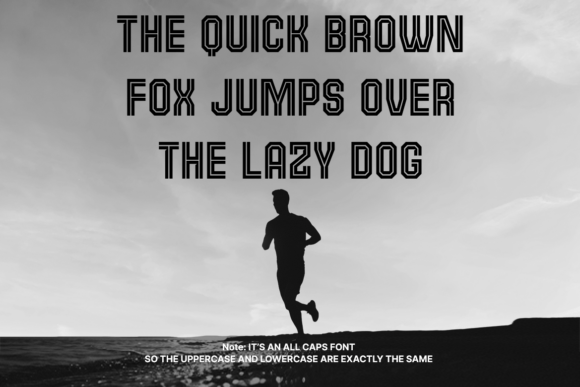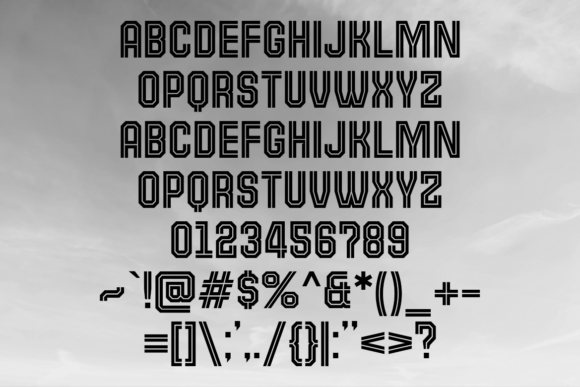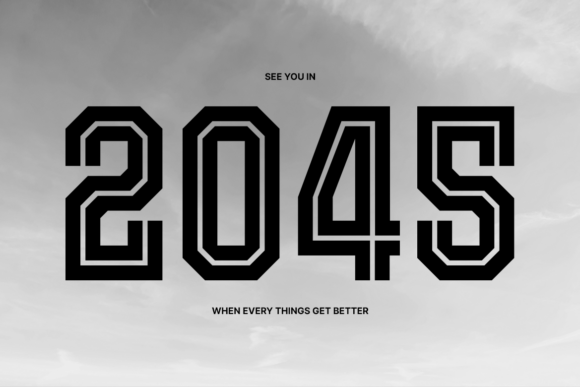
Bogotier Font: Unleash Your Inner Champion
In the world of design, typography plays a crucial role in conveying the tone and personality of a brand. For designers and crafters looking to add a competitive edge to their work, the Bogotier font is an excellent choice. Inspired by the dynamic visuals of today’s sports world, Bogotier is a sleek and bold font designed for champions.
The Inspiration Behind Bogotier
The Bogotier font is born out of the high-energy world of sports. From the bold numbers on a jersey to the fierce branding of a championship, the font captures the essence of athleticism and performance. The designers of Bogotier drew inspiration from the sleek lines and dynamic visuals that dominate the sports landscape, including esports events. The result is a font that exudes confidence, energy, and a winning mentality.
Design Features of Bogotier
Bogotier’s design is characterized by sleek, jersey-inspired characters with bold lines running through them. This unique feature gives the font its distinctive look and feel, setting it apart from other fonts in the market. The bold lines add a sense of dynamism and movement to the font, making it perfect for designs that require a high level of energy and excitement.
Perfect for Sports and Esports Designs
Bogotier is specifically designed for designers and crafters who work on sports and esports-related projects. The font’s bold and sleek design makes it ideal for:
- Jerseys and team branding
- Championship logos and branding
- Esports event visuals and promotions
- Sports equipment and apparel design
Whether you’re designing a logo, brochure, or social media graphic, Bogotier is the perfect choice to add a competitive edge to your work.
Why Choose Bogotier?
So, why should you choose Bogotier over other fonts? Here are a few compelling reasons:
- Unique design: Bogotier’s distinctive design sets it apart from other fonts, making it perfect for designers looking to create something bold and eye-catching.
- High-energy feel: The font’s bold lines and sleek design give it a high-energy feel that’s perfect for sports and esports-related designs.
- Versatile: Bogotier is a versatile font that can be used for a wide range of design projects, from logos and branding to social media graphics and more.
Tips for Using Bogotier
To get the most out of Bogotier, here are a few tips:
- Use it boldly: Bogotier is designed to make a statement, so don’t be afraid to use it in bold and eye-catching ways.
- Experiment with colors: The font’s sleek design looks great in a variety of colors, so experiment with different color schemes to find the one that works best for your design.
- Pair it with other fonts: Bogotier can be paired with other fonts to create a unique and interesting design. Try pairing it with a clean sans-serif font for a bold and modern look.
In conclusion, Bogotier is a font that’s designed for champions. Its sleek and bold design makes it perfect for sports and esports-related designs, and its unique features set it apart from other fonts in the market. Whether you’re a designer or crafter looking to add a competitive edge to your work, Bogotier is an excellent choice. So why wait? Download Bogotier today and unleash your inner champion!